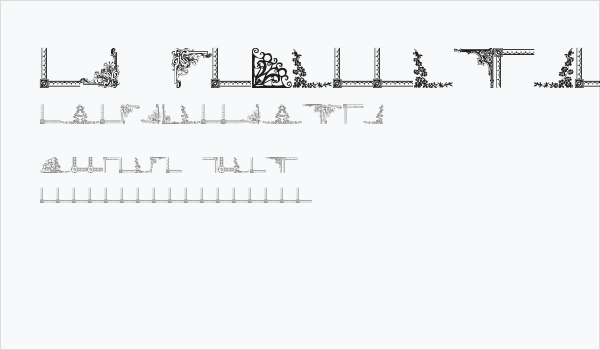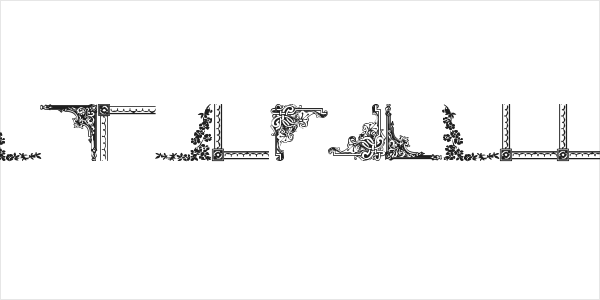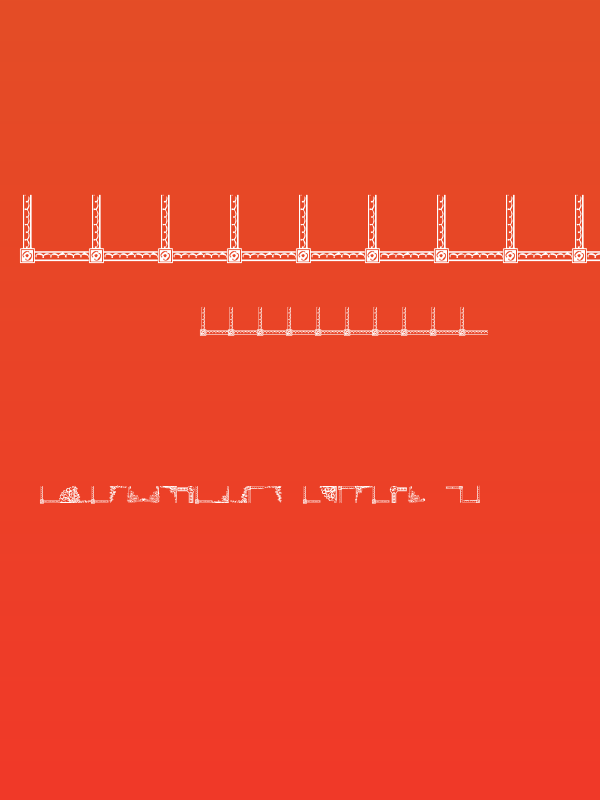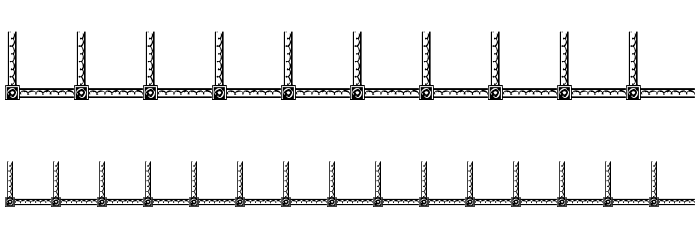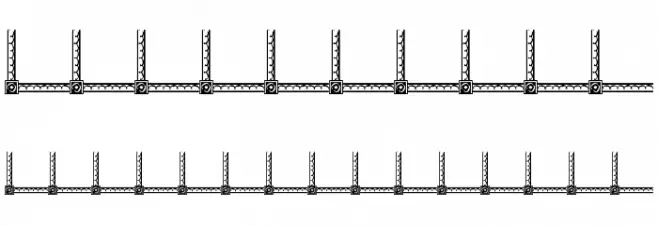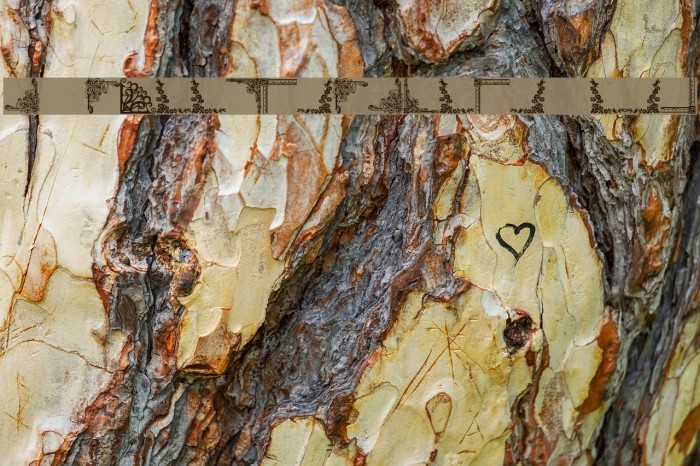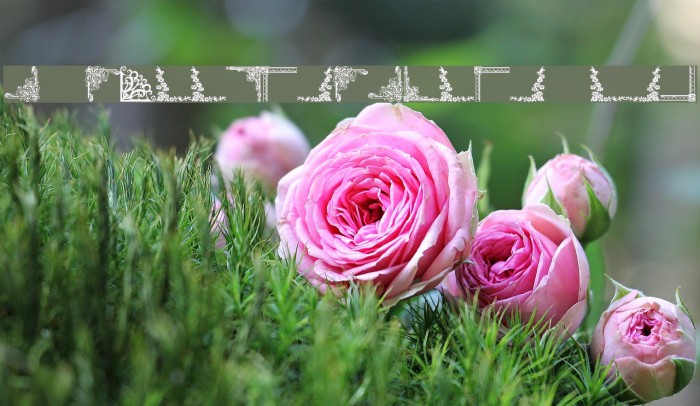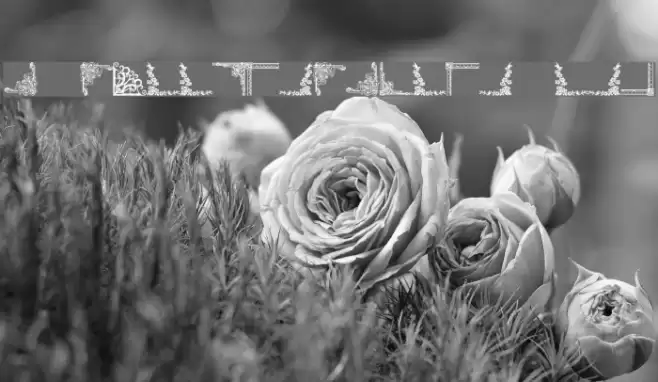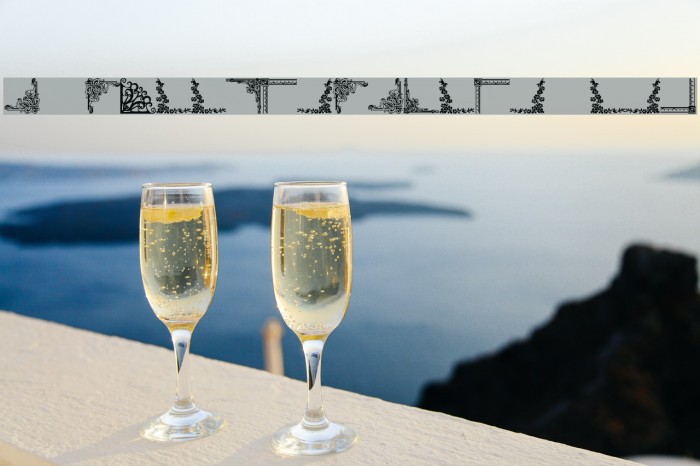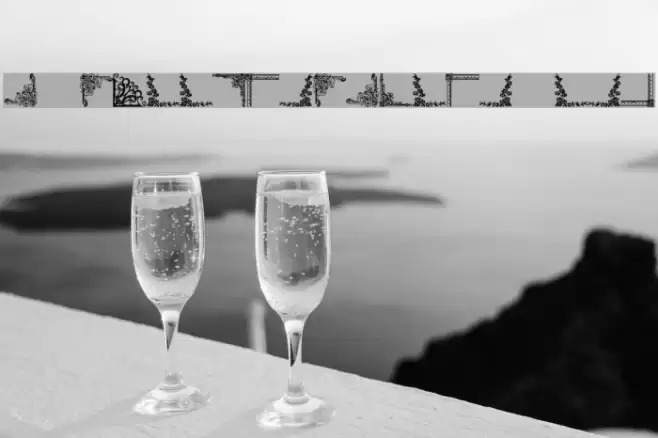
Vintage Decorative Corners 10 Font
Vintage Decorative Corners 10 Description
Highly decorative set of vintage-inspired corner and border elements featuring intricate floral and geometric patterns, designed to mimic ornate metalwork or Victorian embellishments. The elements are not traditional alphanumeric characters but rather ornamental glyphs for use in design decoration.
| Overall Style | Vintage, Decorative |
| Use Case | Borders, frames, embellishments, not suitable for body text or headlines. |
| Proposed Projects | Invitations, certificates, book covers, vintage posters, decorative frames, scrapbooking, branding for luxury or heritage products. |